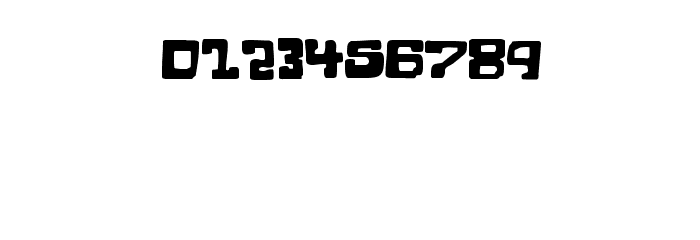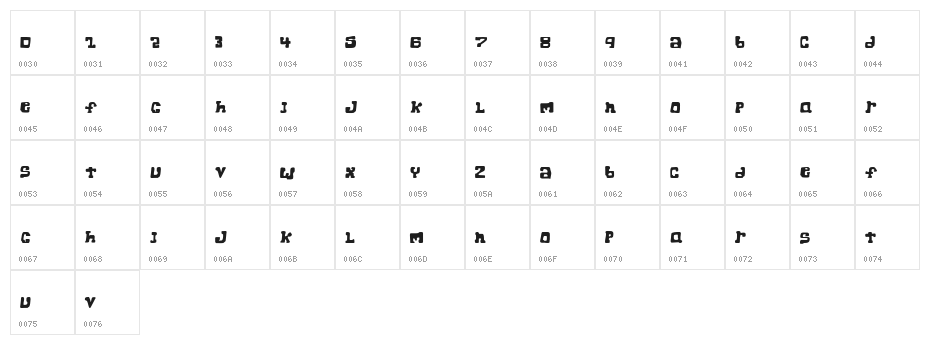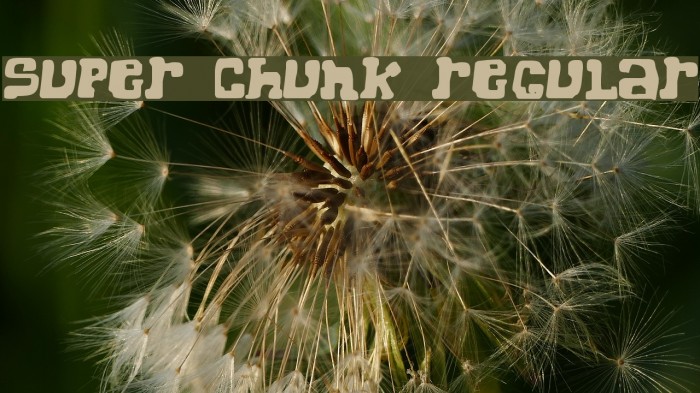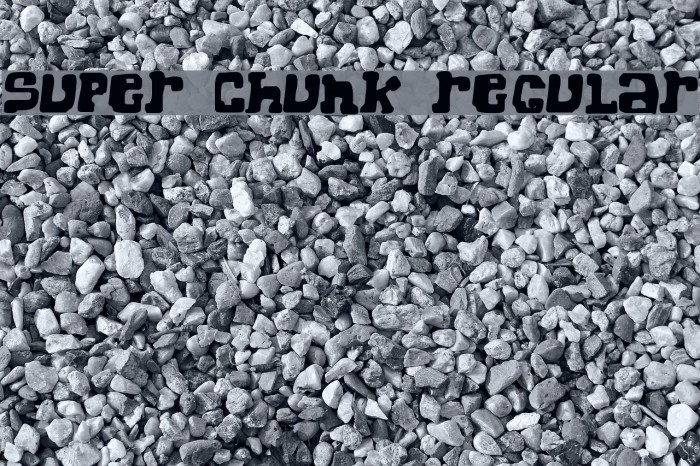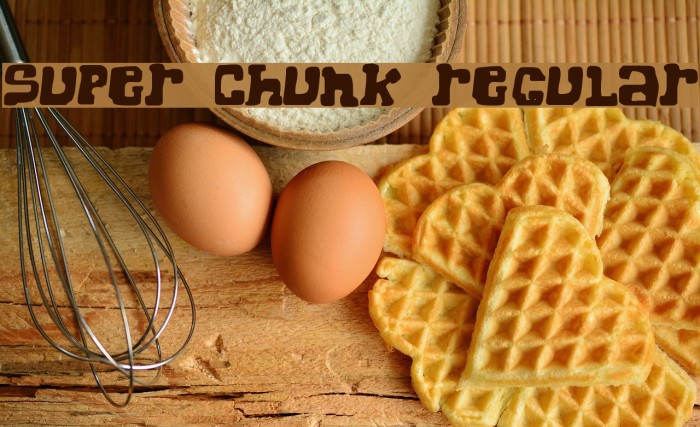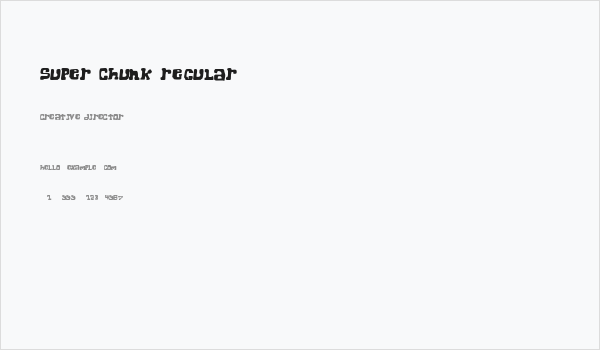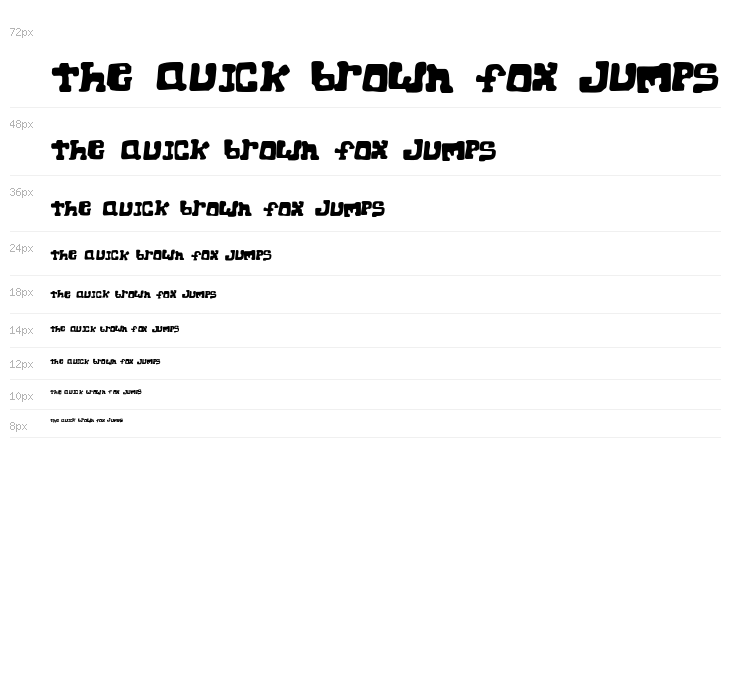
Super Chunk Regular Font
Super Chunk Regular Description
This font exhibits a bold and chunky style with a playful and robust appearance. The characters are heavily weighted, giving them a substantial presence on the page. Each letter features a unique, slightly irregular shape that adds a whimsical and informal touch. The font's design is reminiscent of retro or vintage styles, with a modern twist that makes it suitable for contemporary use. The thick strokes and rounded edges contribute to its friendly and approachable feel, making it ideal for projects that require a strong visual impact.
| Overall Style | Retro, Modern |
| Proposed Projects | Ideal for posters, headlines, logos, and branding materials that require a strong and playful visual impact. |